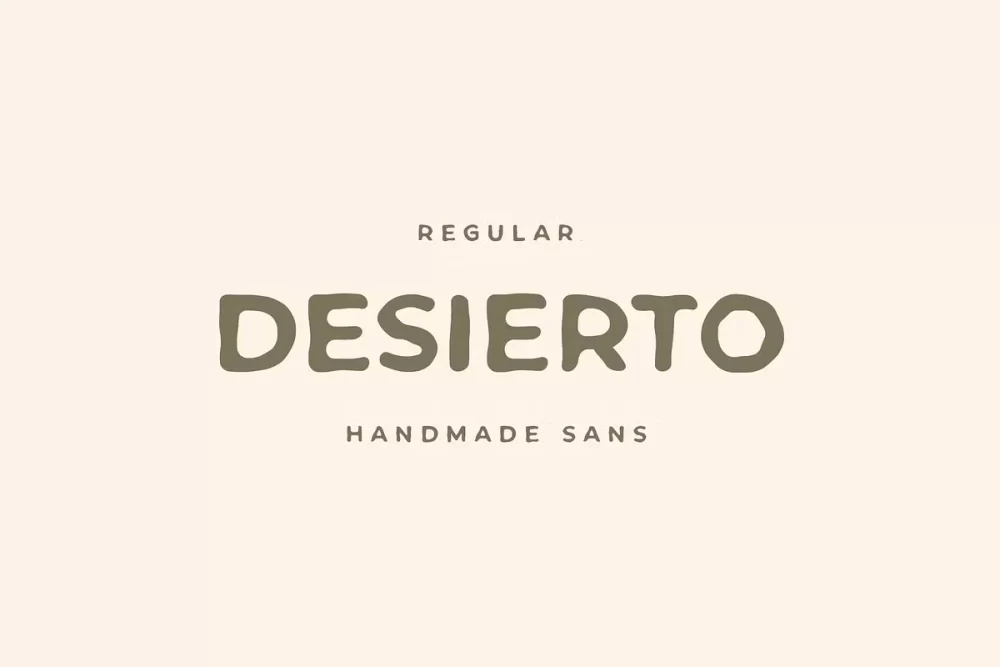
Desierto Font
Desierto is an elegant, handwritten sans-serif font. This font is perfect for posters, social media posts, branding, personal projects, etc.